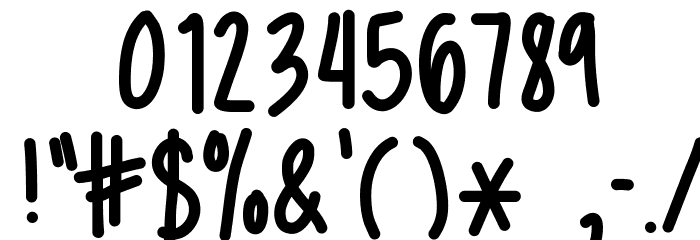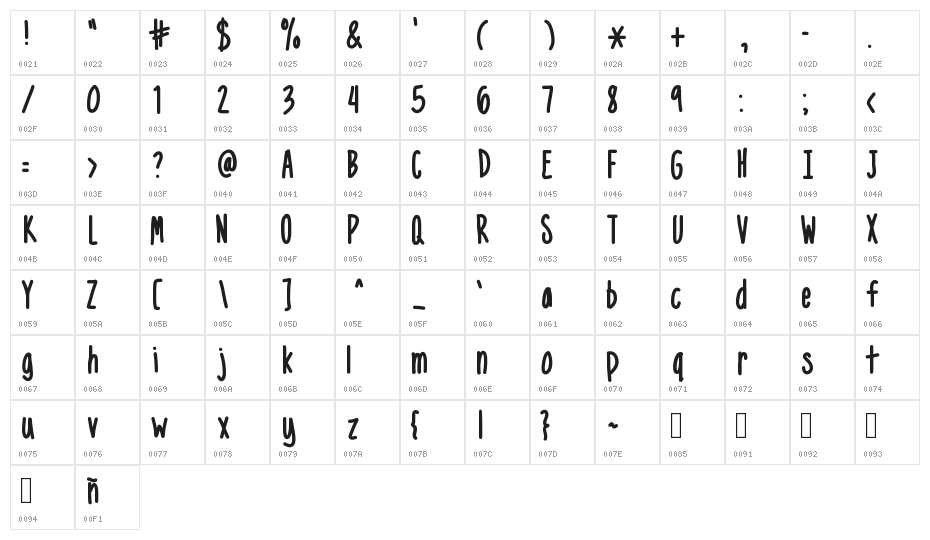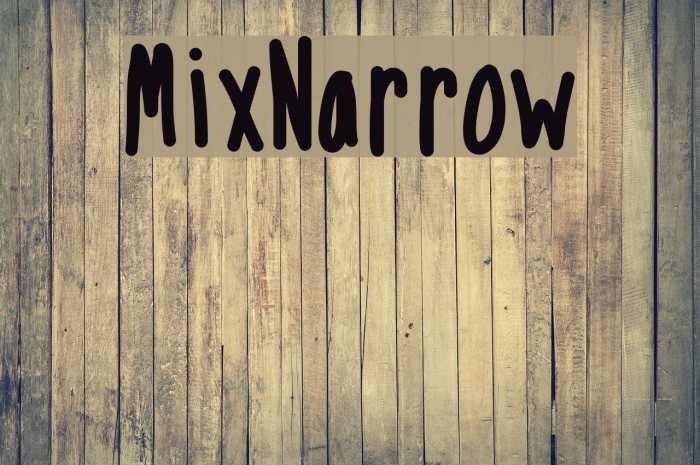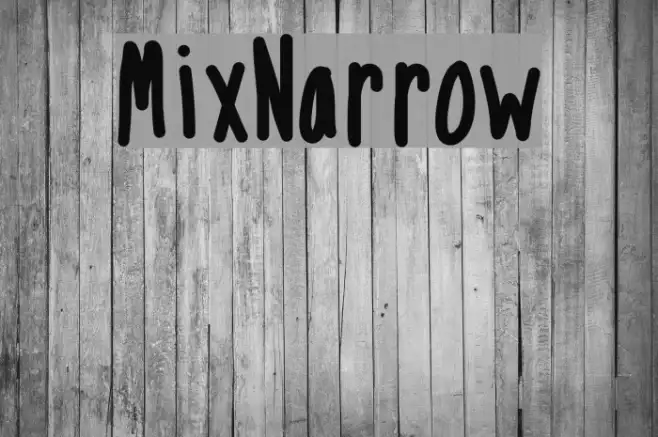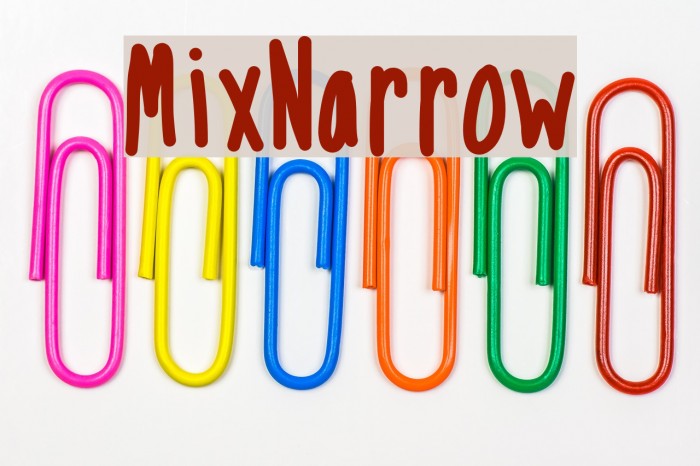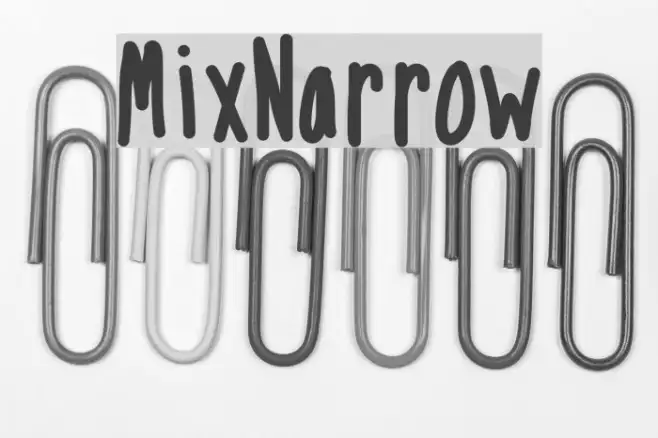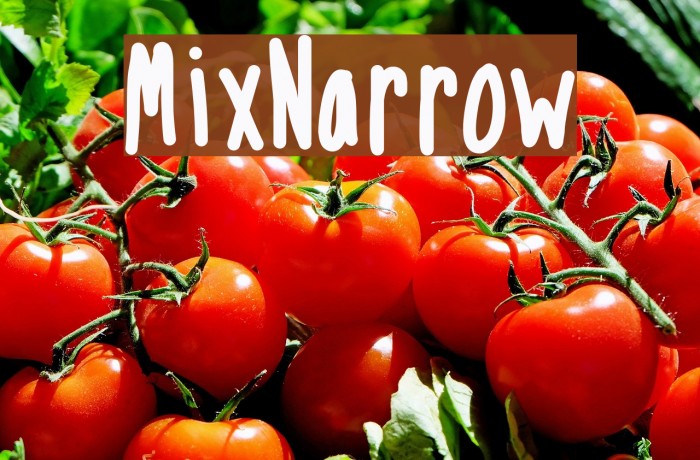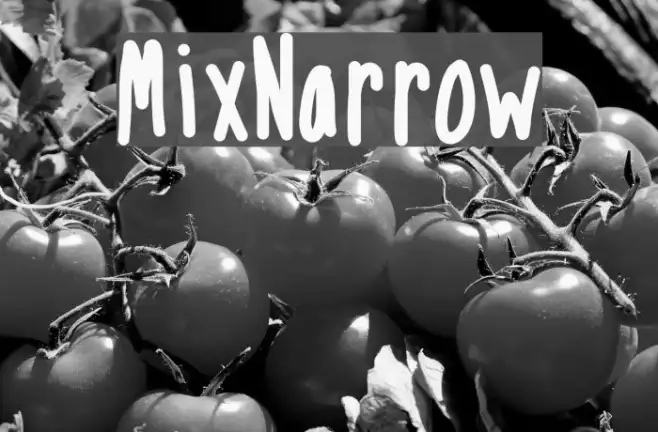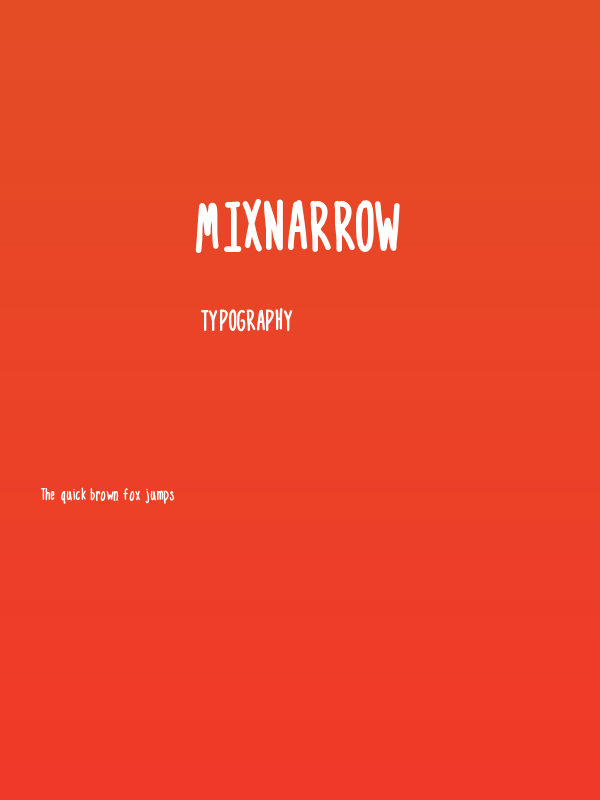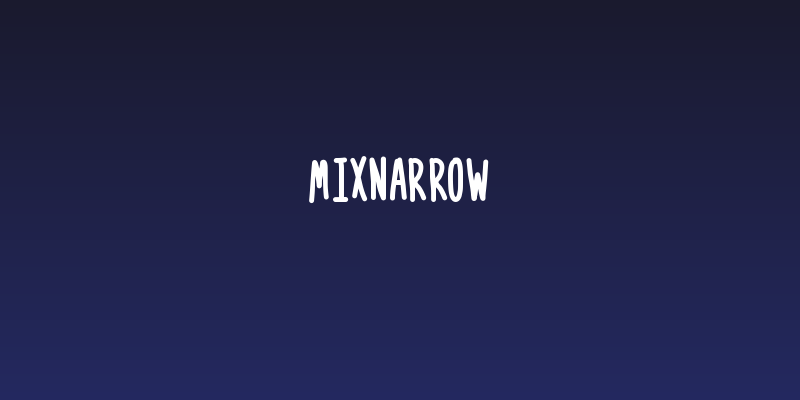
MixNarrow Font
MixNarrow Description
This font features a playful and informal style with a hand-drawn appearance. The characters are slightly irregular, giving it a whimsical and friendly look. The strokes are bold and consistent, with rounded edges that add to its approachable feel. The uppercase and lowercase letters maintain a consistent height, while the numbers and special characters are designed to match the overall aesthetic. This font is perfect for projects that require a casual and fun vibe, such as children's books, greeting cards, or playful branding.
| Proposed Projects | Ideal for children's books, greeting cards, playful branding, and informal invitations. |